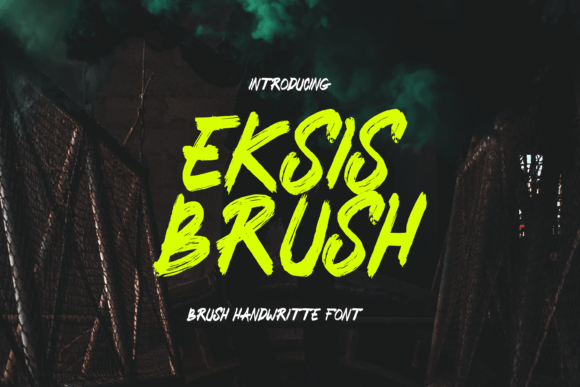
Step into the world of Eksis Brush Font, a dynamic display font created by Idealeksis that will ignite your creativity and transform your designs into captivating masterpieces. Its bold and expressive strokes evoke a sense of energy and movement, making it the perfect choice for creating impactful headlines, posters, logos, and branding materials that demand attention.
With Eksis Brush Font, your words will leap off the page, leaving a lasting impression on your audience. Its distinctive character set, featuring both uppercase and lowercase letters, along with a wide range of punctuation and symbols, ensures that your message is communicated clearly and effectively.
Eksis Brush Font is not just a font; it's an artistic expression that breathes life into your designs. Its versatility shines through in its ability to adapt seamlessly to various design projects, from eye-catching posters and brochures to sleek business cards and logos. Whether you're a seasoned designer or just starting out, Eksis Brush Font will elevate your work to new heights.
Immerse yourself in the world of Eksis Brush Font and unlock a realm of possibilities. Its contemporary style and visually pleasing aesthetics make it a joy to use, while its broad character set ensures that your designs are legible and accessible to all.
Don't settle for ordinary fonts that blend into the background. Choose Eksis Brush Font and watch your designs come alive with energy and personality. It's the perfect font for those who dare to stand out and make a statement.